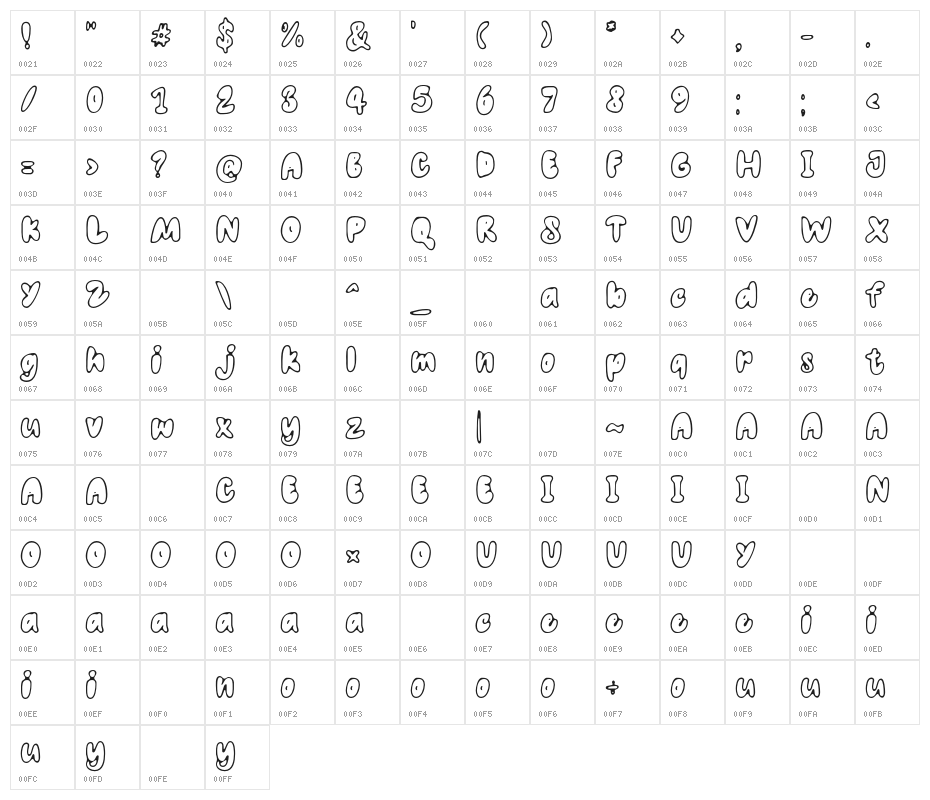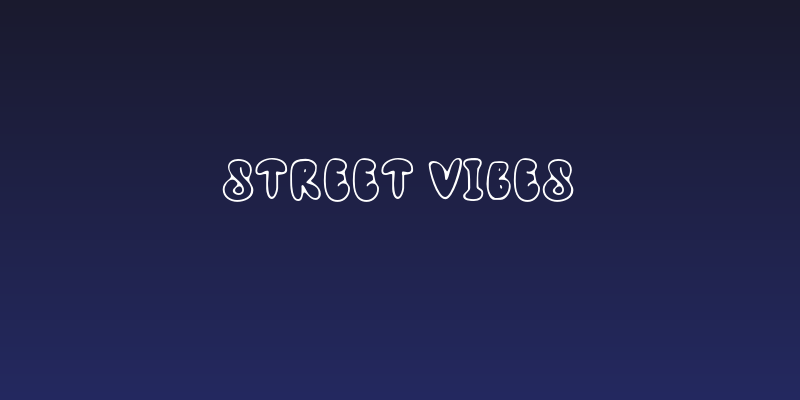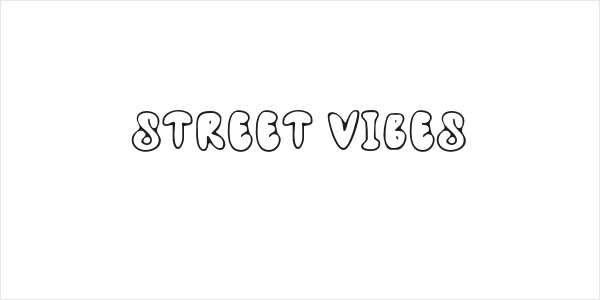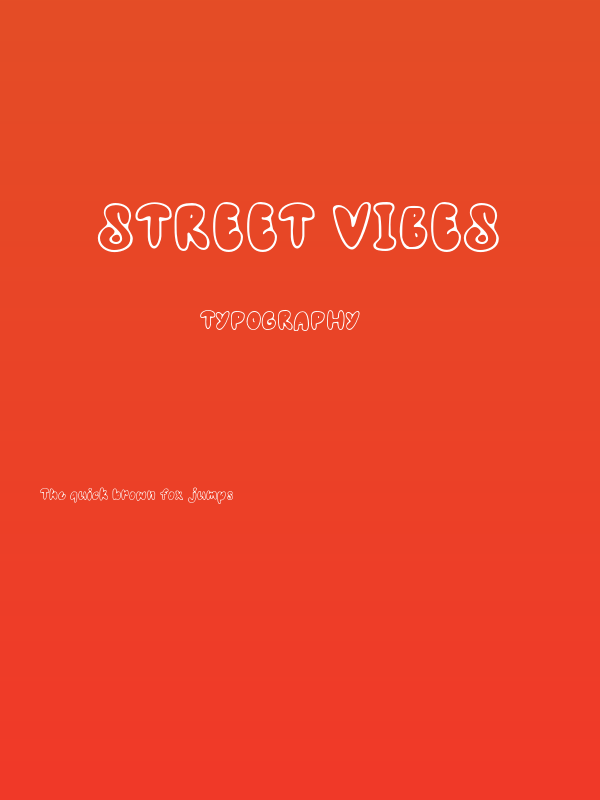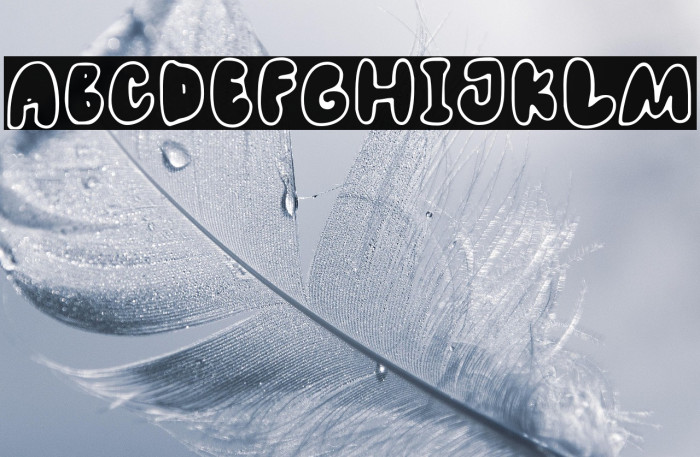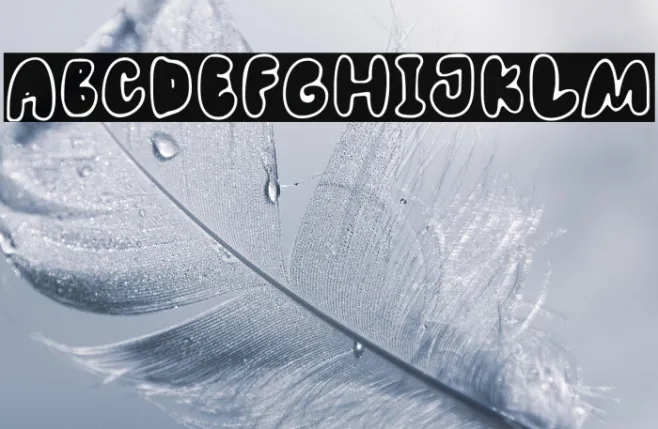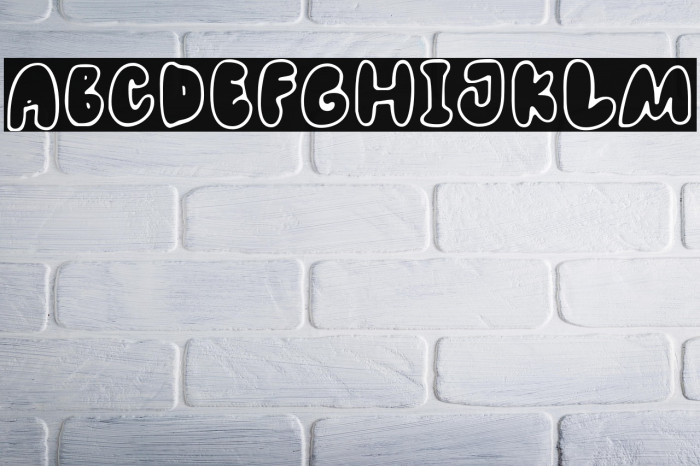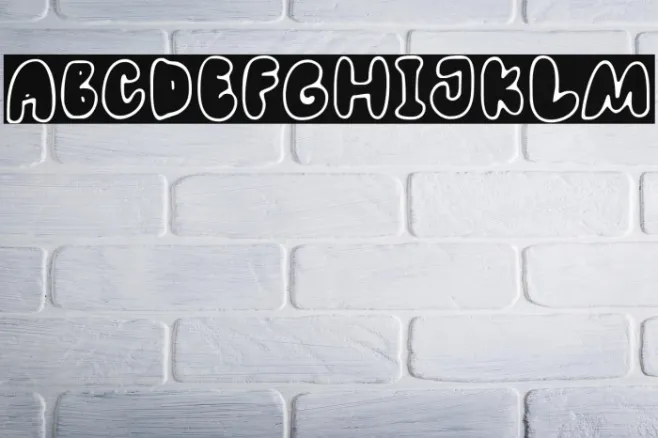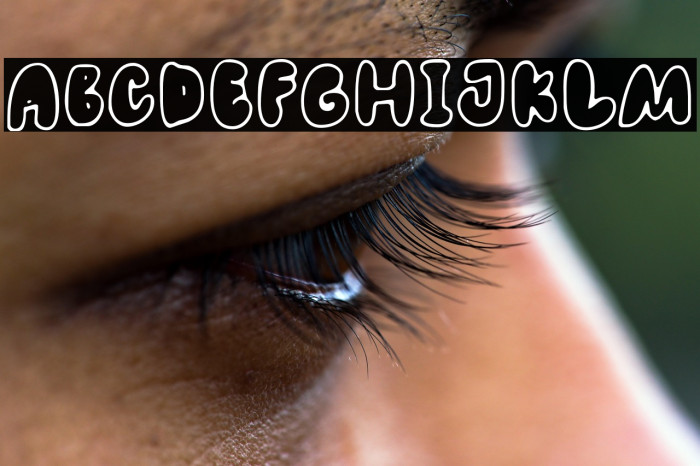
STREET VIBES Font
STREET VIBES Description
This playful and bold font features a bubbly, hand-drawn style that exudes a sense of fun and creativity. Each character is outlined, giving it a distinctive and eye-catching appearance. The rounded edges and irregular shapes contribute to its informal and approachable vibe, making it ideal for projects that aim to convey a sense of whimsy and excitement. The font includes a full set of uppercase and lowercase letters, numbers, and a variety of special characters, ensuring versatility in its application.
| Proposed Projects | Ideal for children's books, playful branding, posters, and creative social media graphics. |